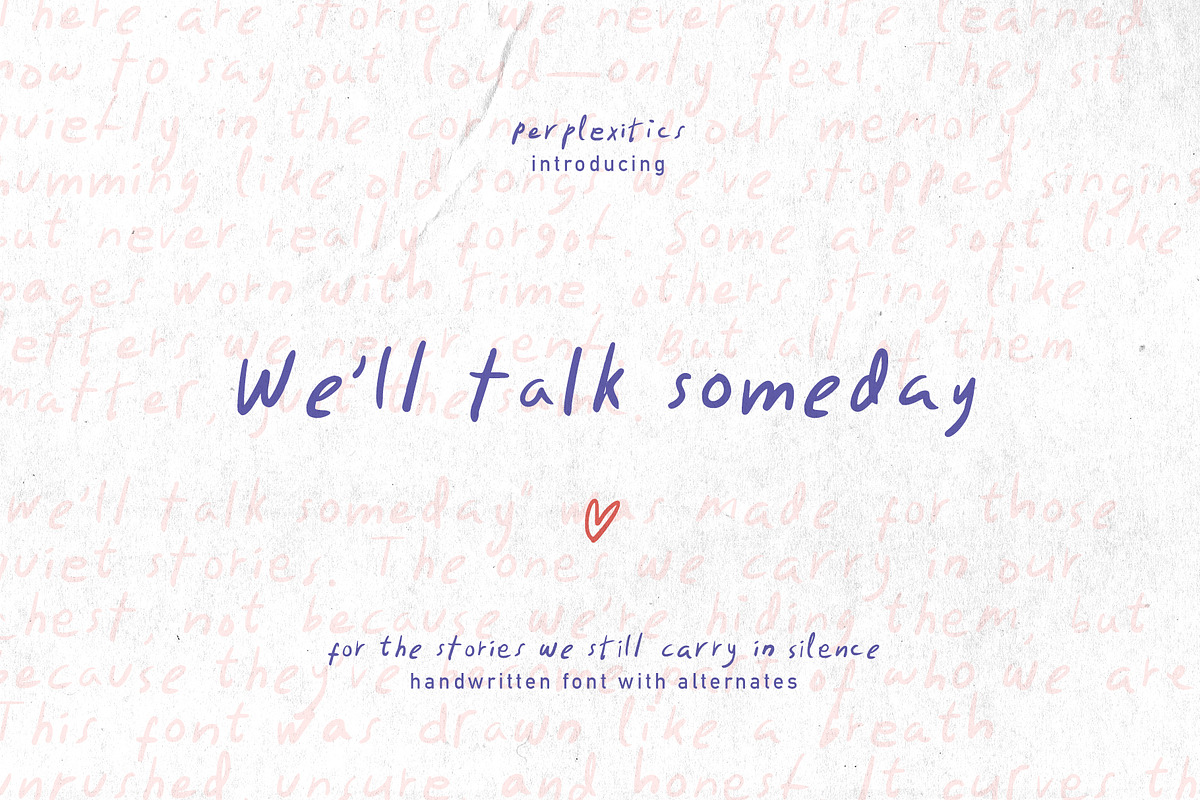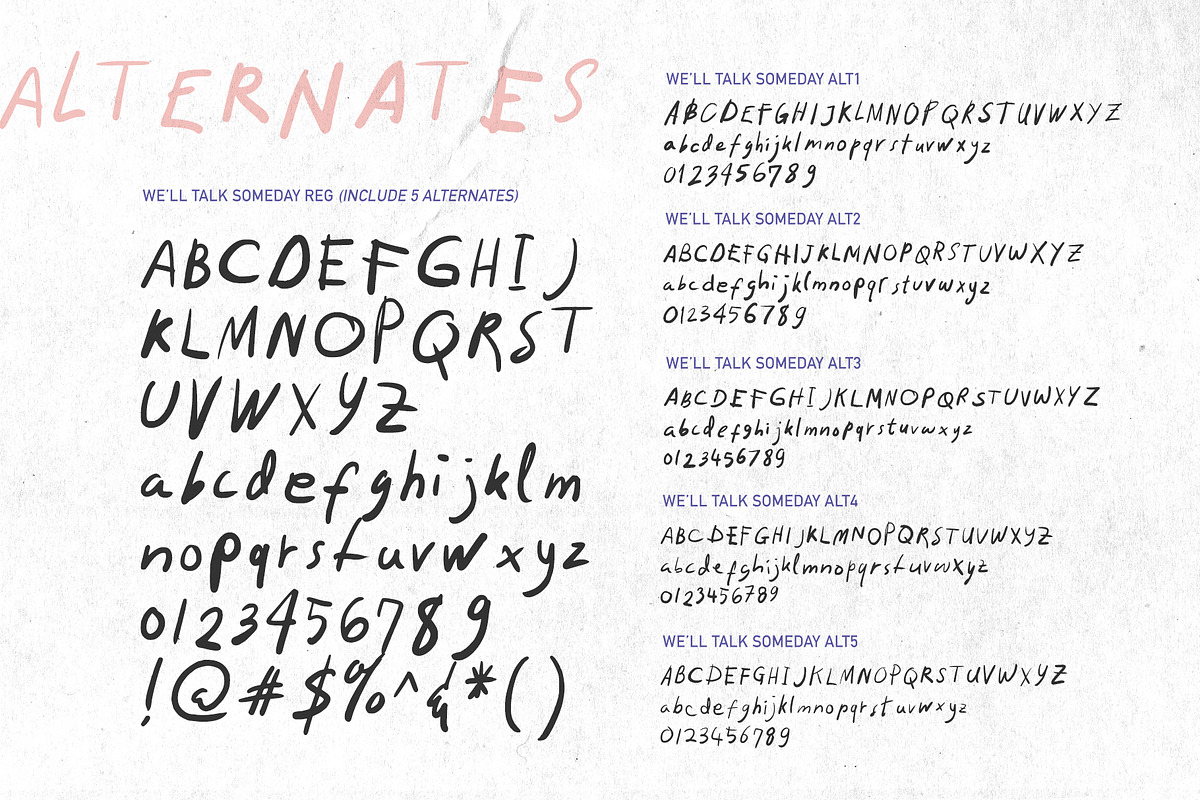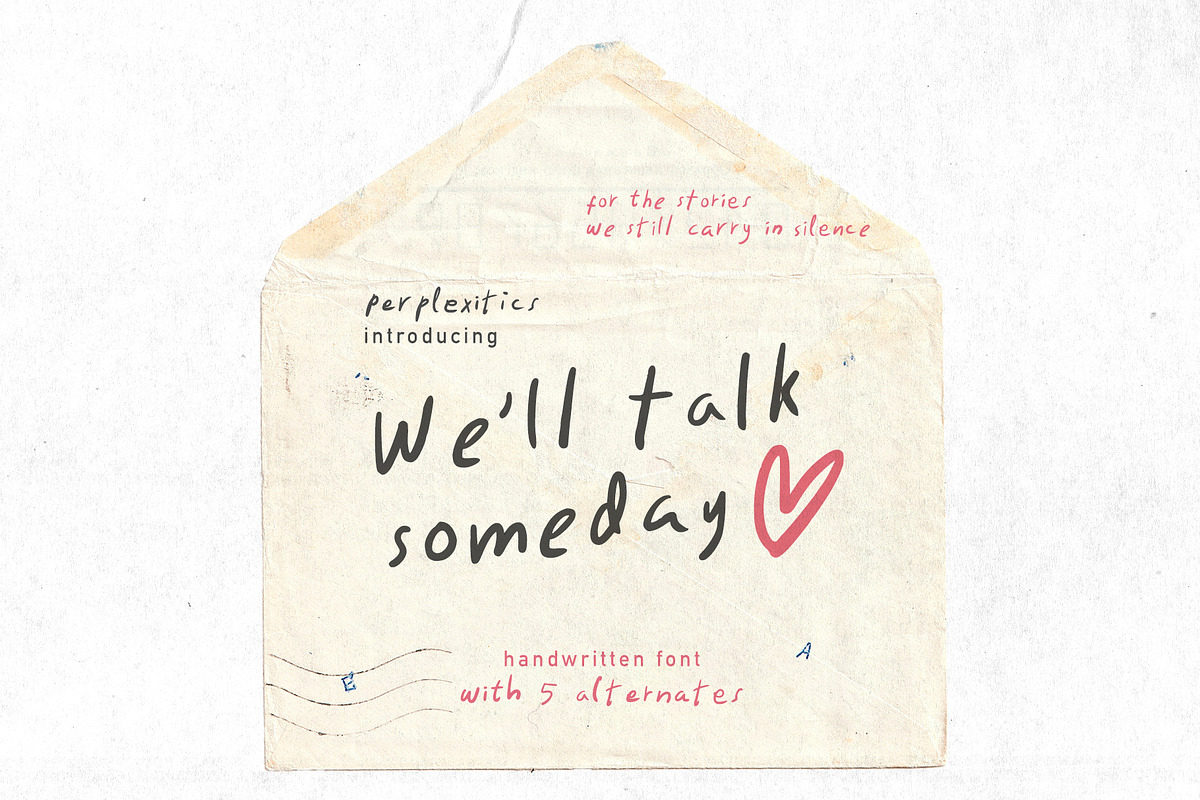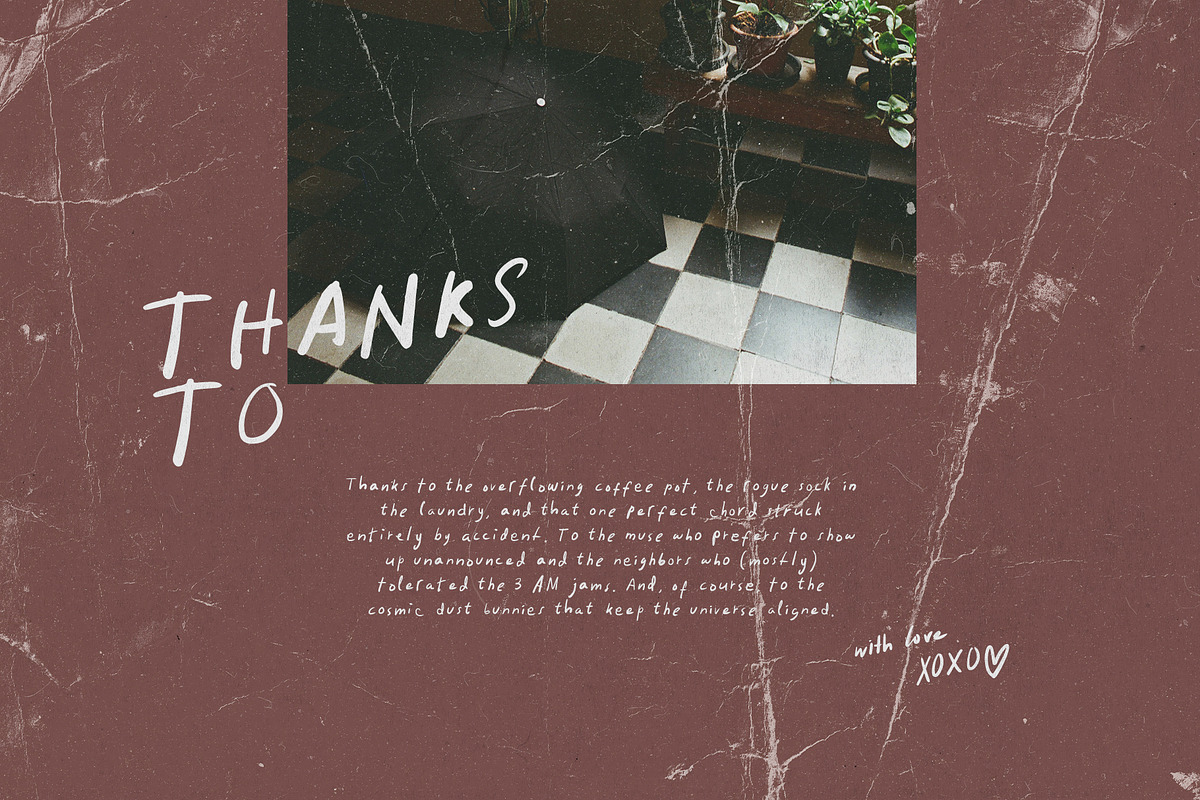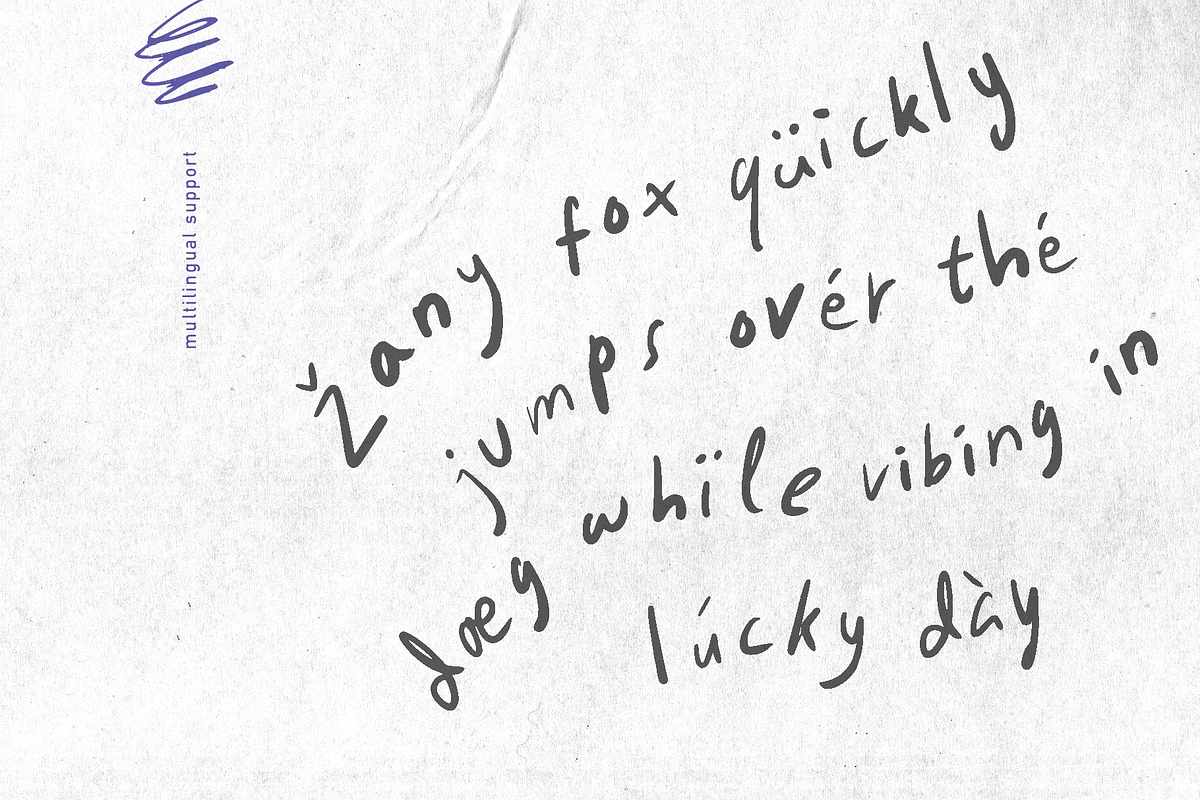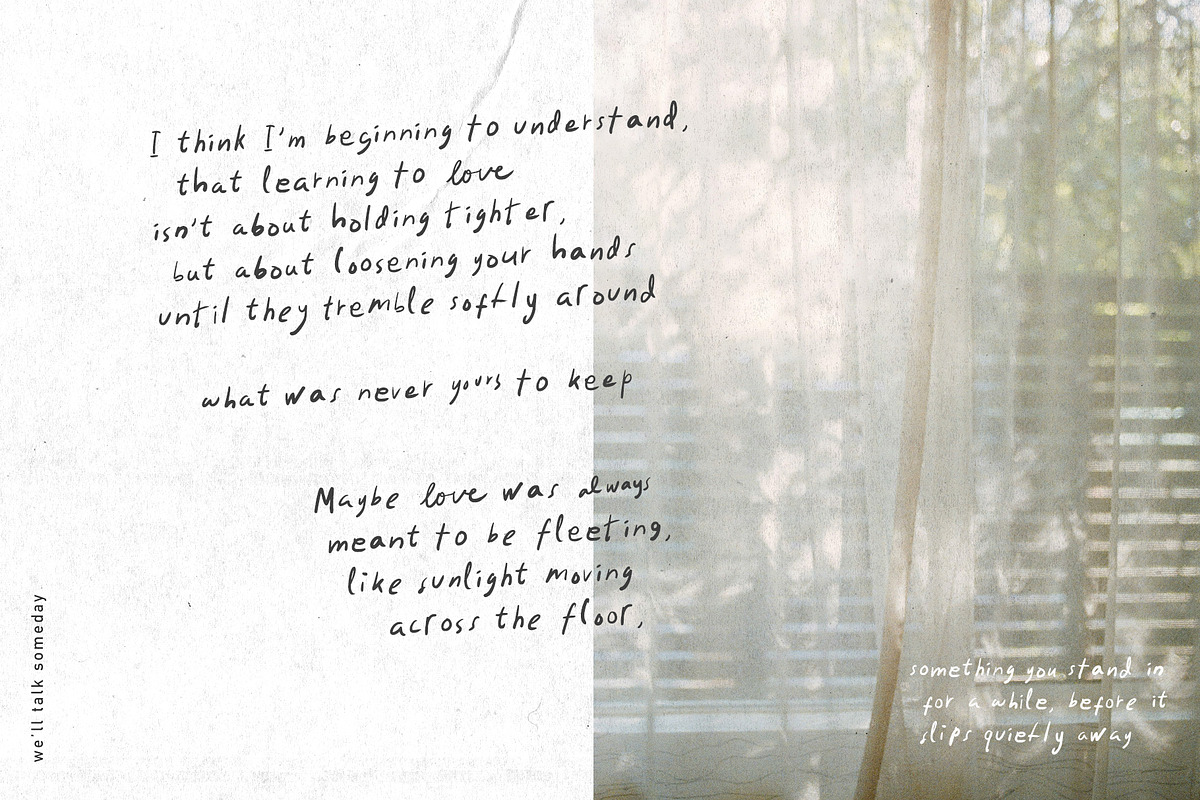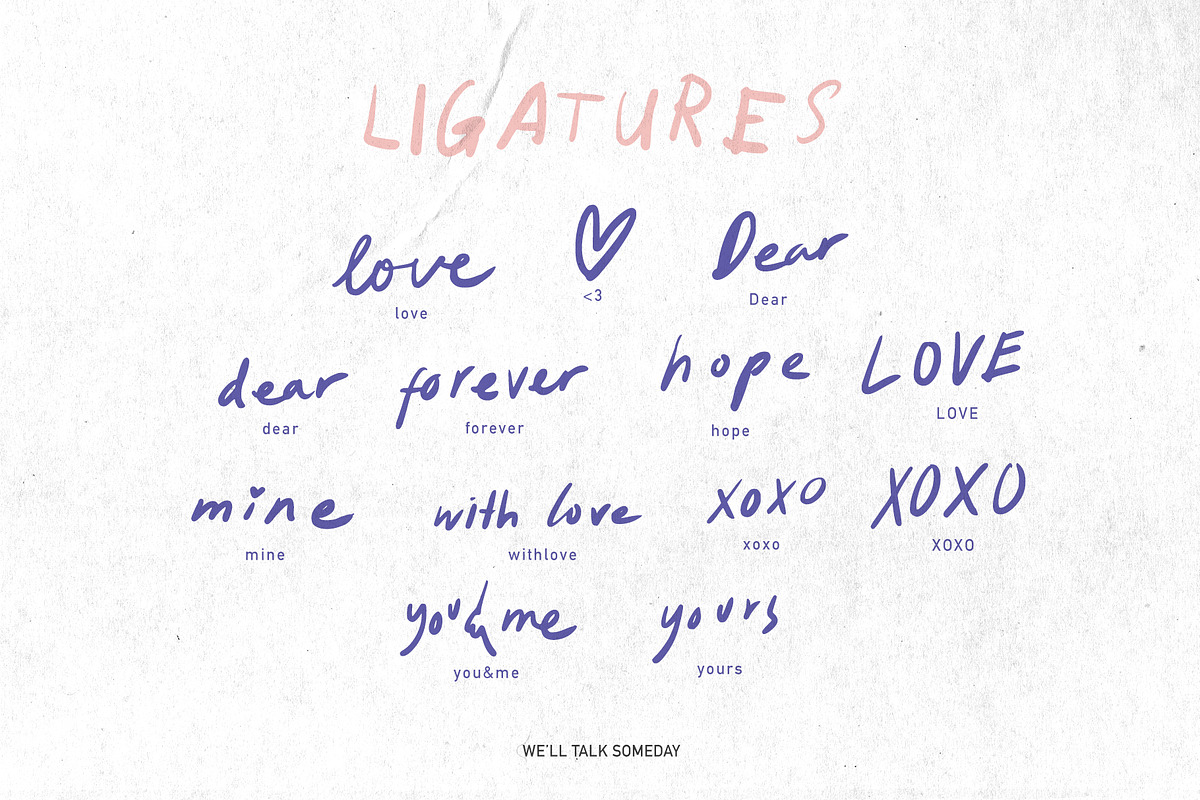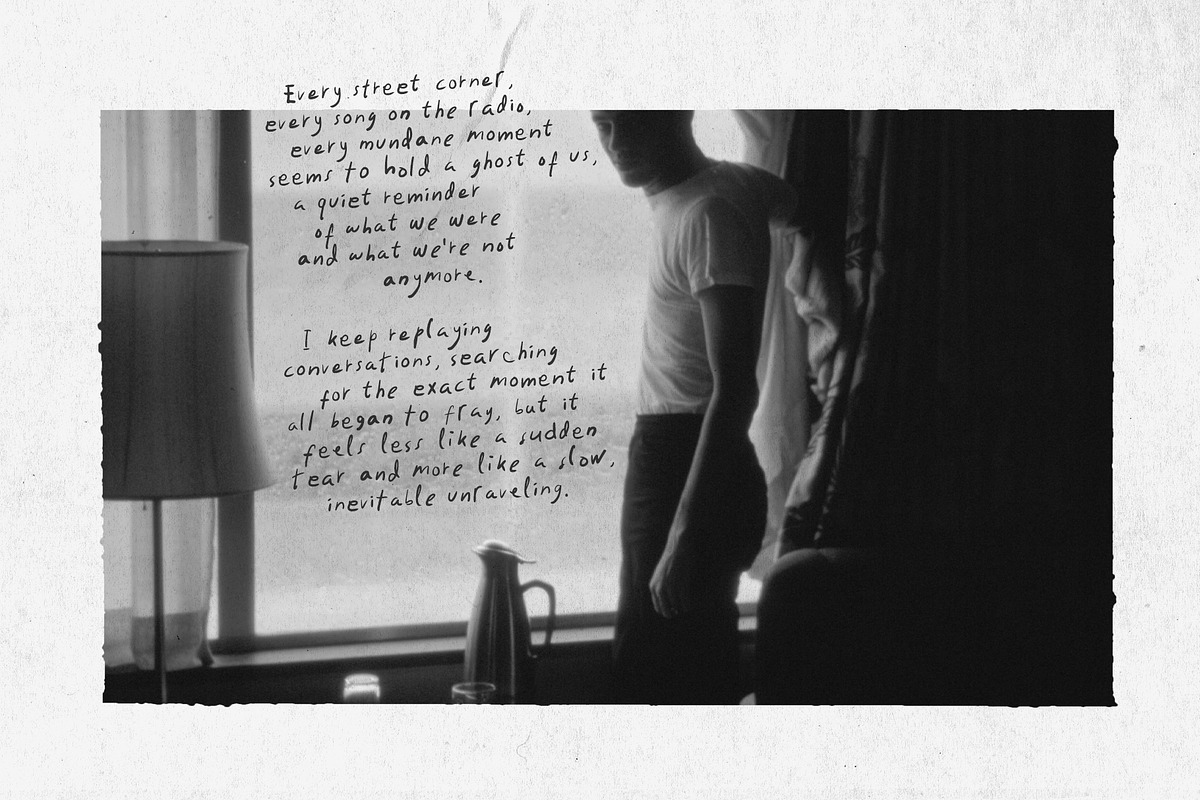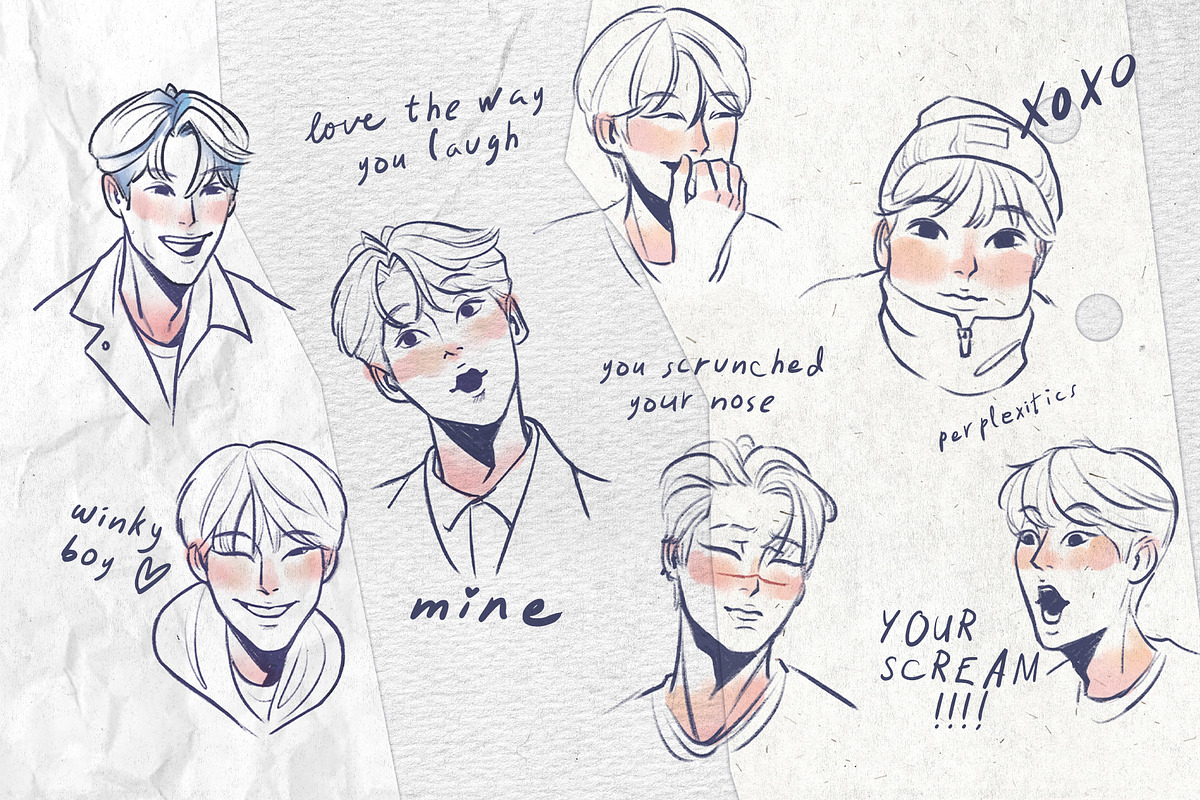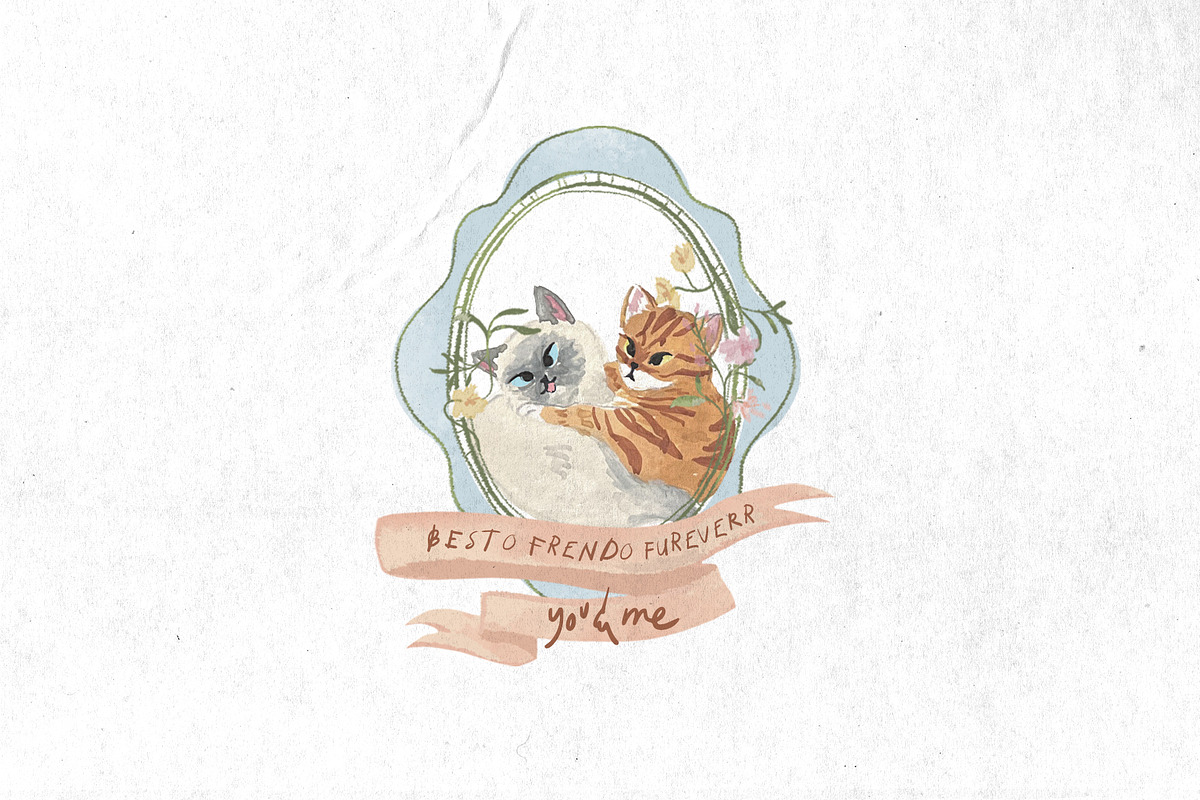
We'll Talk Someday Messy Handwritten
We'll Talk Someday Font is a font with 5 beautiful alternates and a natural flow. It's perfect for planners, notes, and creative projects. We'll Talk Someday Font is packed with everything you need, including uppercase and lowercase letters, numbers, punctuation, and 5 alternates. Multilingual support.